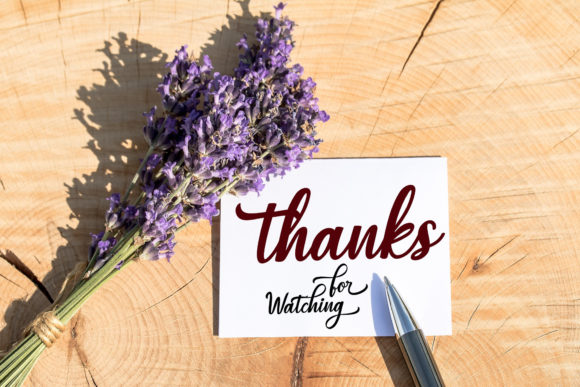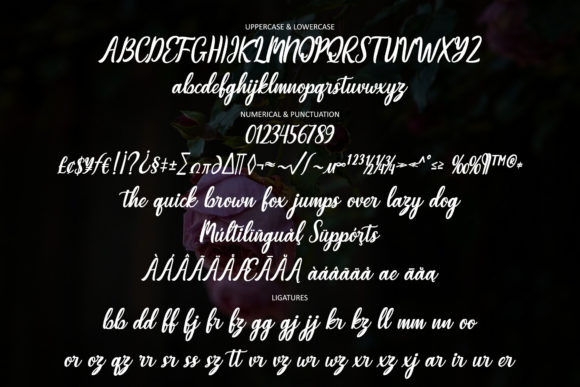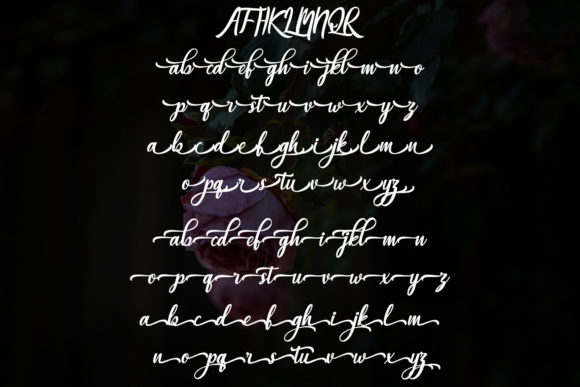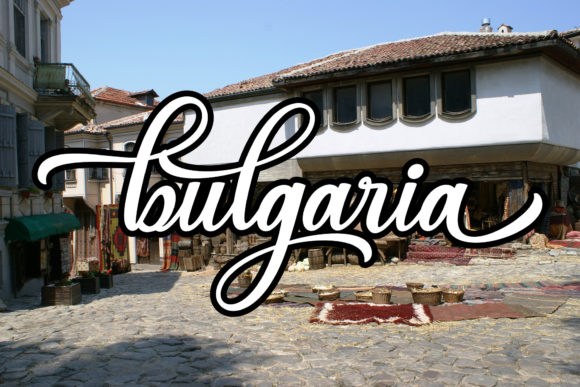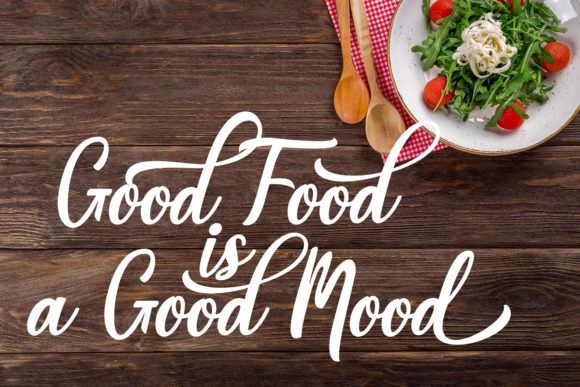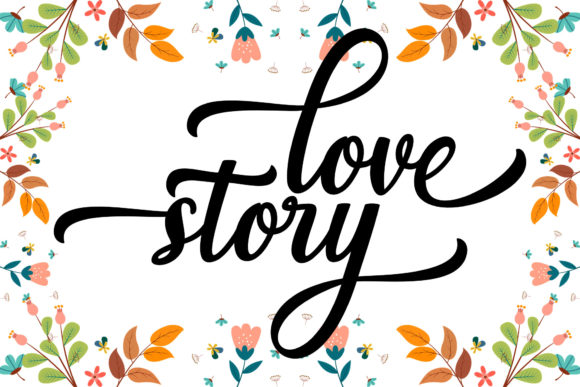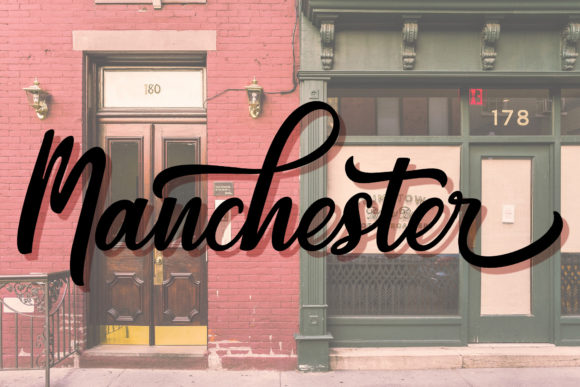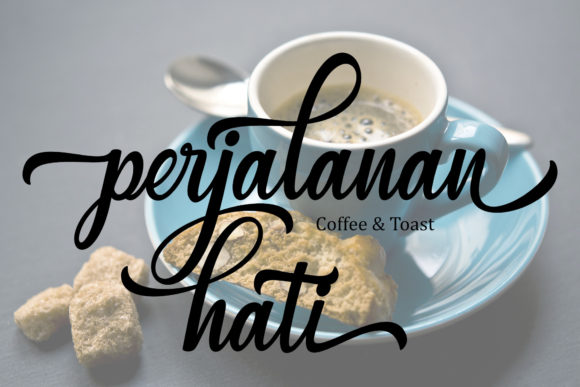
Beauty Rhapsody Font
About Beauty Rhapsody Font
Beauty Rhapsody is an exquisite handwritten font, masterfully designed to become a true favorite. It maintains its classy calligraphic influences while feeling contemporary and fresh. Beauty Rhapsody is PUA encoded which means you can access all of the glyphs and swashes with ease!